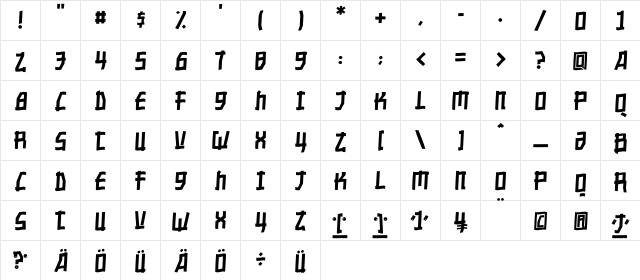
NipponToonItalic Regular
Design Context for NipponToonItalic Typeface
NipponToonItalic is a composed and adaptable typeface that performs quietly and consistently across a wide range of design contexts. The dynamic lean of this cut emphasises speed and emphasis in any layout.
Pro Tip: Use NipponToonItalic for emphasis, pull quotes, and subheadings where its slanted energy can add rhythm to the layout.